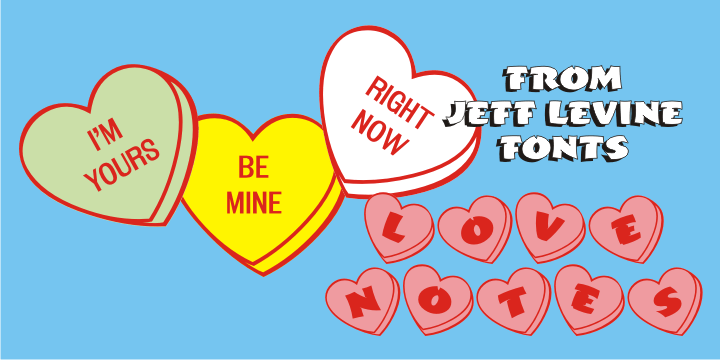
Love Notes
Love Notes JNL is a total reworking of one of Jeff Levine's old freeware fonts.
This revised version has an alphabet set jogged left and right in different upper and lower case variations. Playing around with the shift key will bring you the optimum results.
On the left and right parenthesis keys are blank hearts logged left and right, and the corresponding fill fonts are on the bracket keys. (NOTE: You may have to do some manual adjustments, as the overlay placement can vary slightly in some programs.)
There are numerals as well, and scattered around the keyboard are classic "message hearts" – just like in the boxes of candy. A backfill glyph for the numerals and message hearts is on the backslash key.